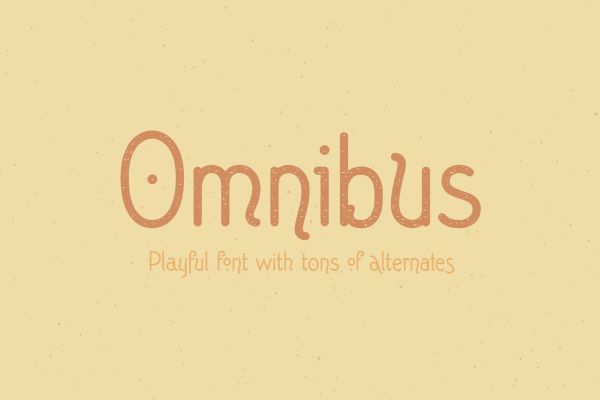
Omnibus Font
Omnibus by Bartosz Wesolek is a modern playful sans-serif typeface that arrived somewhere between intention and happy accident — the original concept evolved during the design process and landed in a far more interesting place. The result is a typeface loaded with alternates and ligatures, giving it a flexibility that few playful display fonts can match. Its letterforms carry energy and wit without sacrificing structure, making it a natural fit for branding, fun-forward projects, poster design, editorial covers, and any creative work that calls for personality at headline scale. Free for personal and commercial use.